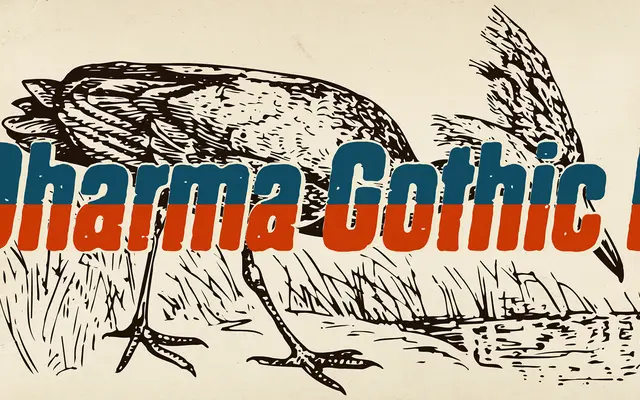
Dharma Gothic P
A distressed version of Dharma Gothic that simulates the ink-worn texture of aged letterpress printing across four styles.
Built on the skeleton of Dharma Gothic, this variant applies deliberate hand-tweaked distressing to each glyph, replicating the ink-splotched irregularities of worn vintage print. The family covers Roman, Italic, Bold and Bold Italic, giving workable range for headline and display use. Stylistic alternates via OpenType salt feature offer variant forms for characters such as g, r and y.
Based on Dharma Gothic, a condensed grotesque, but treated with deliberate distressing to simulate aged, ink-worn letterpress print. The worn texture and vintage character push it firmly into display territory.